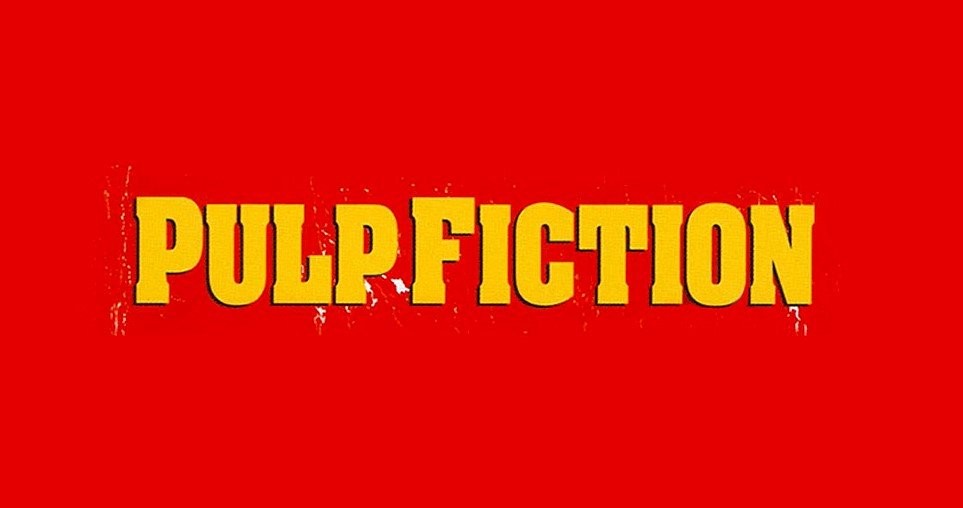
I am excited to share the incredible Pulp Fiction Font with you This typeface was originally created for the poster of the 1994 American movie "Pulp Fiction." Thanks to the film's popularity, this font has gained immense popularity and boasts excellent ratings.
It contains fashionable characters, display texture, and beauty designing layouts which can be used with the combination of the blessed script font as well for taking the advantage of this font perfectly.